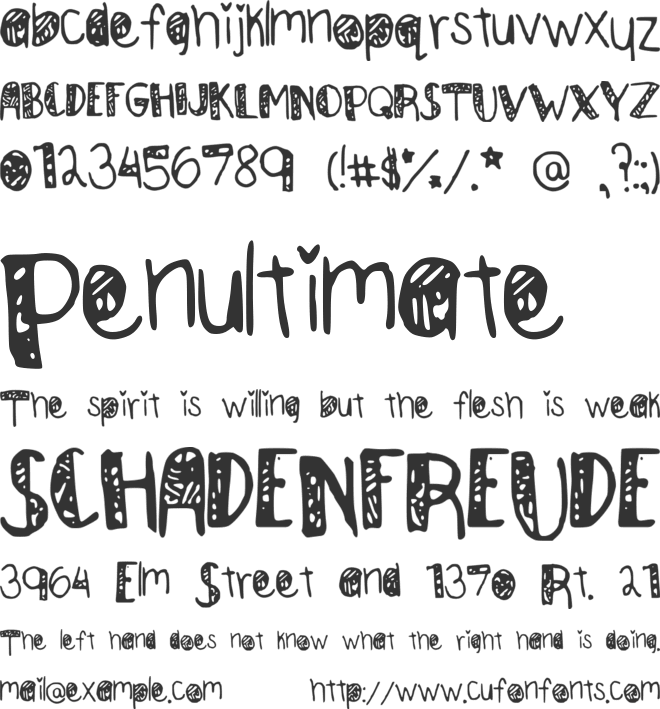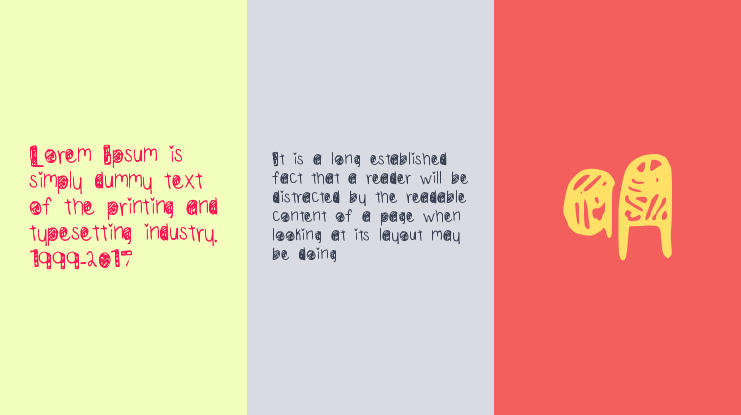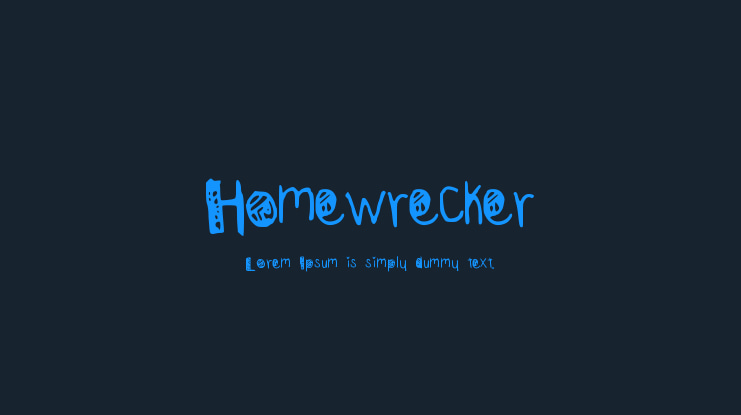
Homewrecker Font
A handwritten font by me :) Named after Homewrecker by Marina and The Diamonds.
Tribal and friendly use it anywhere!
*best used in all caps*